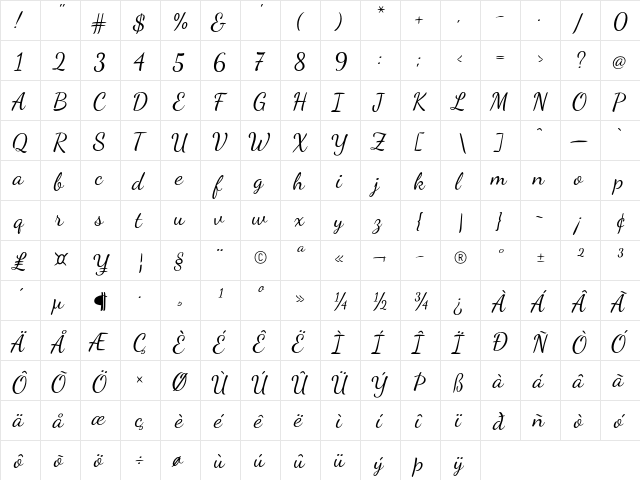
Dancing Script OT Regular Font Preview
Dancing Script OT Regular
Dancing Script OT Regular Font Details
| Foundry | Pablo Impallari.https://www.impallari.com Igino Marini.https://www.ikern.com |
| Designer | Pablo Impallari |
| Year | 2010 |
Design Context for Dancing Script OT Typeface
Dancing Script OT flows with the natural rhythm of handwritten lettering, making it ideal for designs that call for warmth and personal expression.
Font Pairing: Combine Dancing Script OT with a simple geometric sans for maximum contrast — the tension between flowing curves and clean structure is a classic typographic pairing.
Pro Tip: Use Dancing Script OT for short runs of text — names, titles, or taglines. Extended body copy in script faces tires the eye quickly.